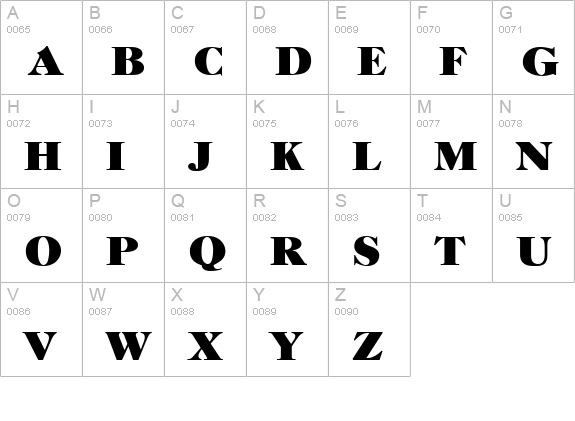
Broadview Regular is the standard, neutral variant in the Broadview typeface family \xE2\x80\x94 well suited to general body text, paragraphs, and standard typographic work.
Broadview Regular is a sleek and modern typeface that offers a perfect balance of elegance and readability. This versatile font is ideal for a wide range of design projects, from branding to editorial design. With its clean lines and classic proportions, Broadview Regular is a timeless choice that will add a touch of sophistication to any design. What sets Broadview Regular apart is that it is available for free download at FontsMarket.com. This means that you can easily access this high-quality font and use it in your projects without any cost. Whether you are a seasoned designer or a novice looking to elevate your designs, Broadview Regular is a valuable addition to your font library. Experience the versatility and beauty of Broadview Regular by downloading it today for free at FontsMarket.com.